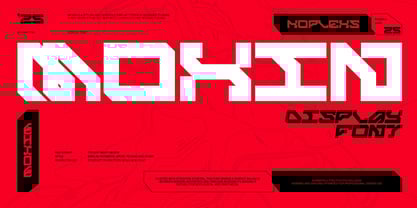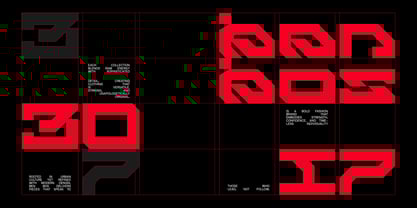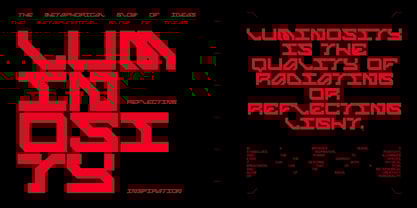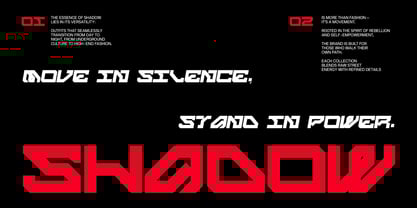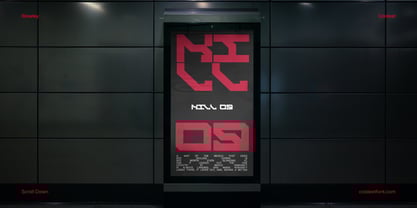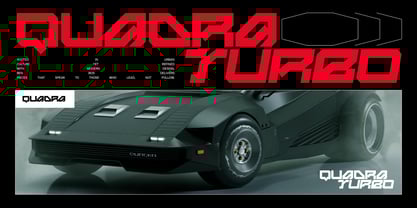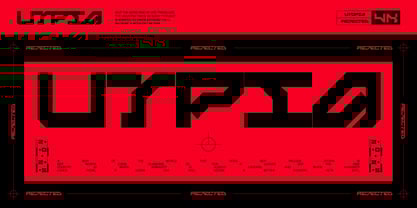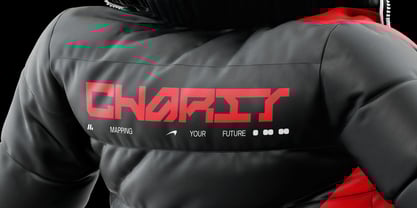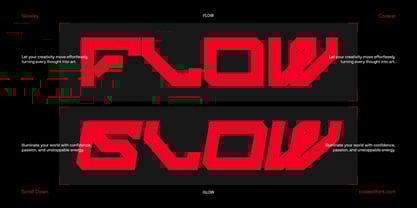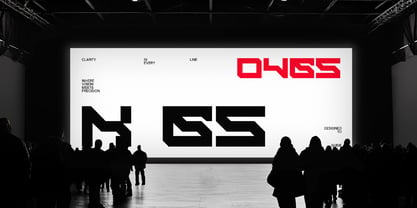
Moxin
by Koplexs Studio
The Moxin Font Family was designed by Ahmad Muslimin and published by Koplexs Studio. Moxin contains 2 styles and family package options.
Moxin Font — Futuristic Cyberpunk Tech Typeface by Koplexs Studio Moxin Font is a futuristic display typeface that blends bold geometry, digital precision, and cyberpunk aesthetics. Designed by Koplexs Studio, this typeface embodies the energy of technology and modern innovation perfect for those who want a design that feels both cutting-edge and powerful. With its sharp edges and dynamic proportions, Moxin is ideal for sci-fi titles, game logos, UI/UX design, technology branding, and futuristic posters. Every character is crafted to evoke speed, intelligence, and the sleek beauty of modern tech culture. Features Includes uppercase, lowercase, numerals, and punctuation Perfect for display use and large-scale typography Designed for global creators and digital use Perfect For Game titles and esports branding Sci-fi movie posters and tech logos Web design and digital media Corporate tech identity and innovation branding Moxin Font captures the future of typography bold, intelligent, and full of energy. Whether you’re creating a cinematic title, an app interface, or a sleek futuristic logo, Moxin will give your work a distinct modern tech identity. 👉 Explore the future. Download Moxin Font today and design with the next generation of type.
Designers: Ahmad Muslimin
Publisher: Koplexs Studio
Foundry: Koplexs Studio
Design Owner: Koplexs Studio